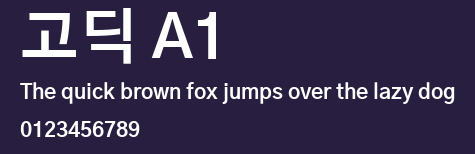
고딕 A1 Preview
• Font Name: 고딕 A1
• Font ID: HanYang; 고딕 A1-Bold
• Full Font Name: 고딕 A1 Bold
• Version: Version 2.50
• PostScript Name: 고딕A1-Bold
• Character Count: 14721
• Designer: (주)한양정보통신
• Manufacturer: (주)한양정보통신
About 고딕 A1.ttf
고딕 A1.ttf is a modern, elegant sans-serif font designed for ultimate readability and visual harmony. Perfect for branding, headlines, web design, and print materials.